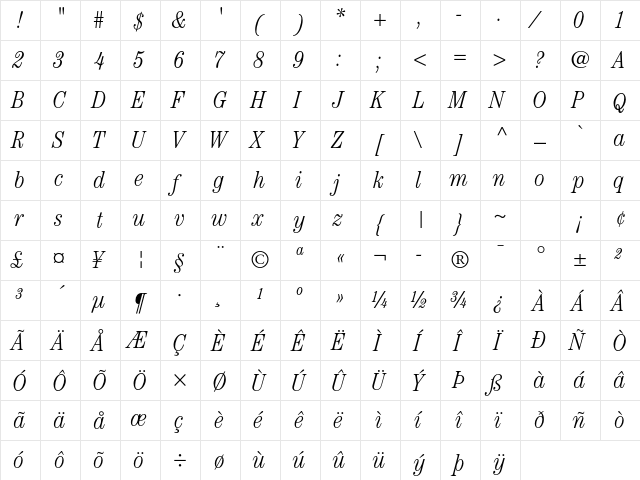
ITC Century Std Light Condensed Italic Font Preview
| Designer | Tony Stan |
Design Context for ITC Century Std Typeface
ITC Century Std takes a measured approach to typography — its balanced proportions and neutral character make it a reliable workhorse for both digital and print work. Its italic angle brings a sense of urgency and motion to the letterforms. Its slender proportions lend an understated elegance to any composition. Its narrow stance lets it pack a punch even in space-constrained designs.
Pro Tip: Use ITC Century Std for emphasis, pull quotes, and subheadings where its slanted energy can add rhythm to the layout.